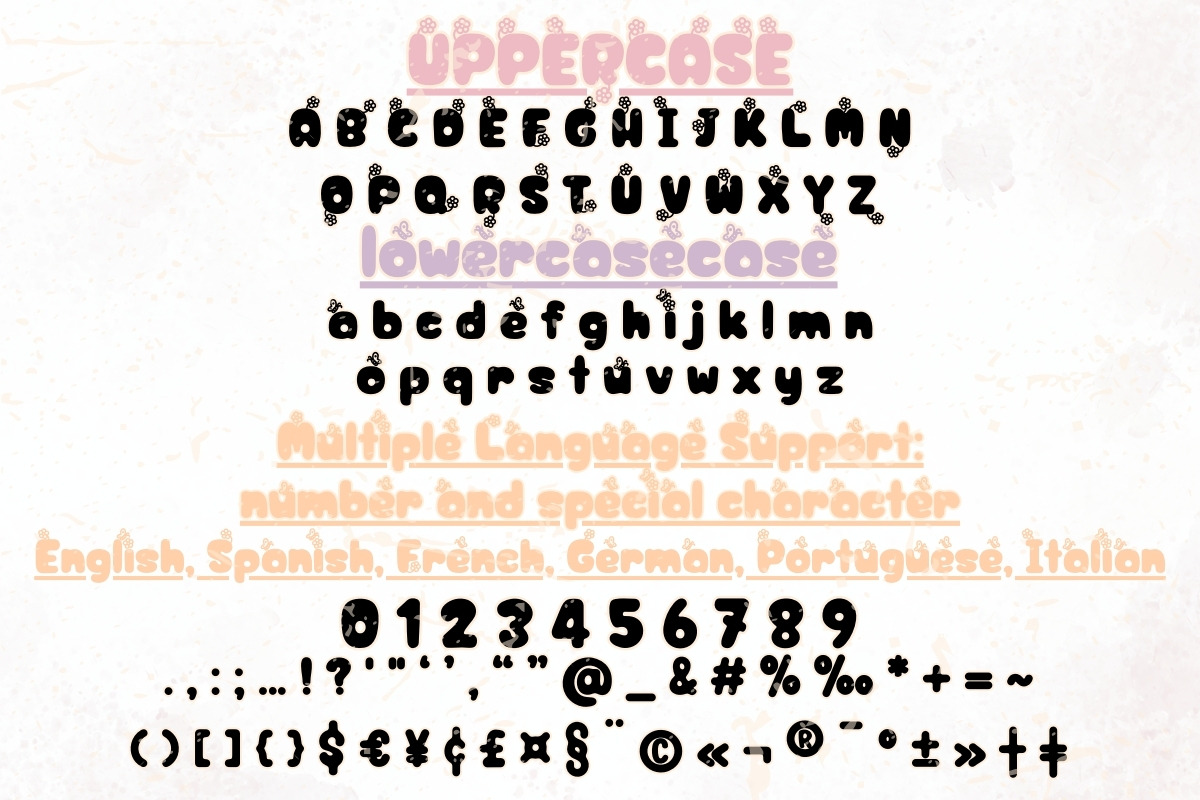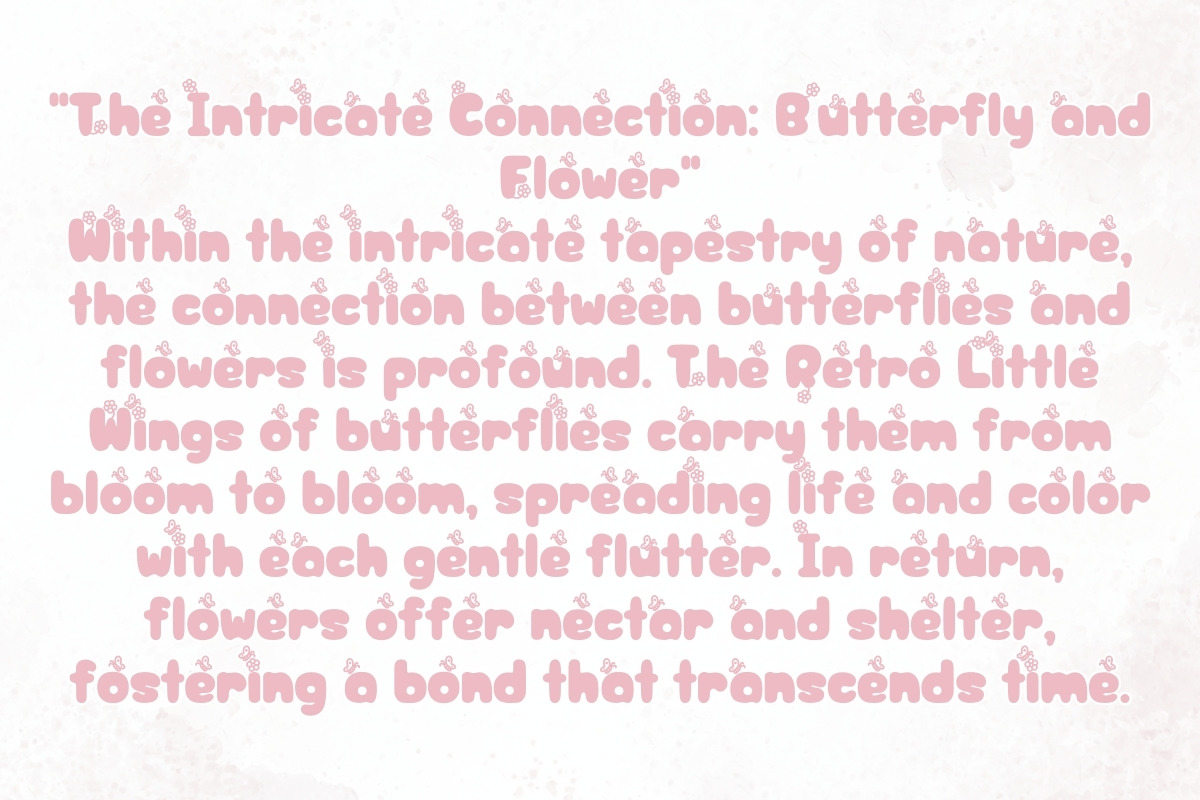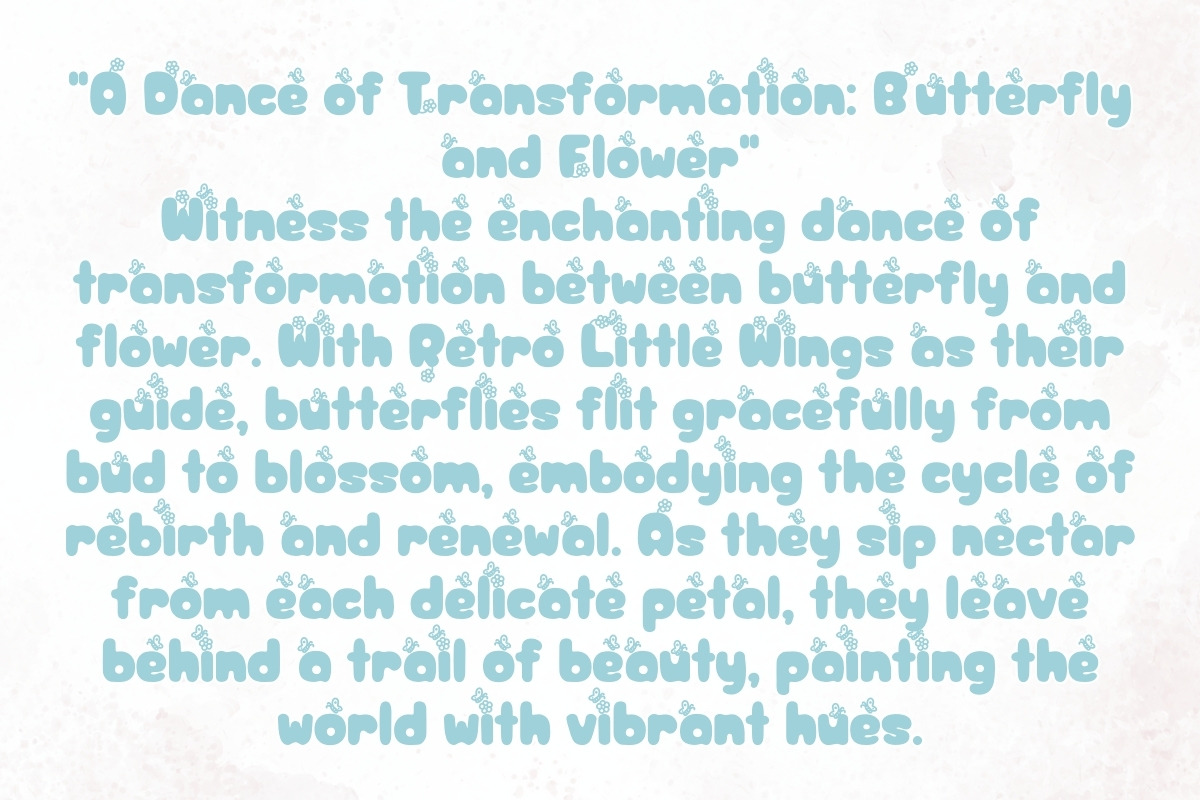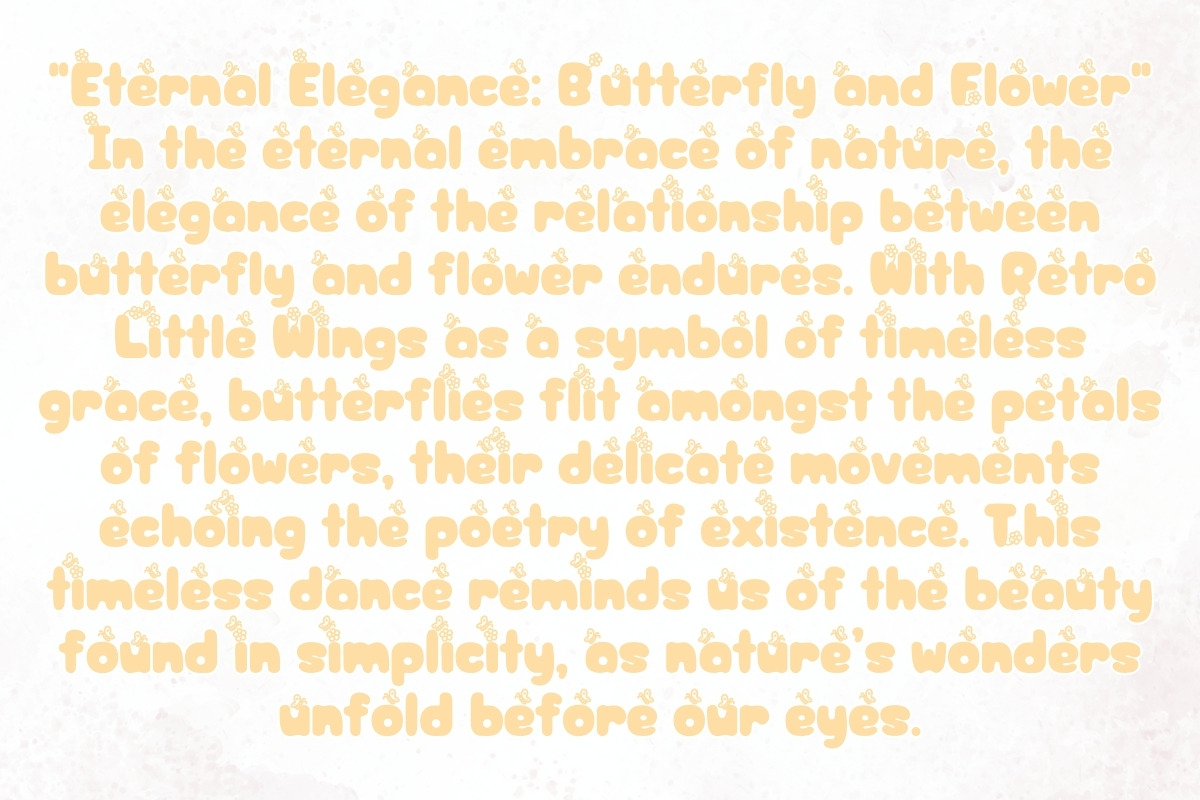
Retro Little Wings - Handwritten
Introducing Retro Little Wings, a font that embodies whimsy and charm with its beautiful, cute handwritten style. Each letter dances gracefully on the page, reminiscent of handwritten notes passed between friends. Its delicate strokes and playful curves evoke a sense of nostalgia and innocence, making it perfect for adding a touch of sweetness to any design project.